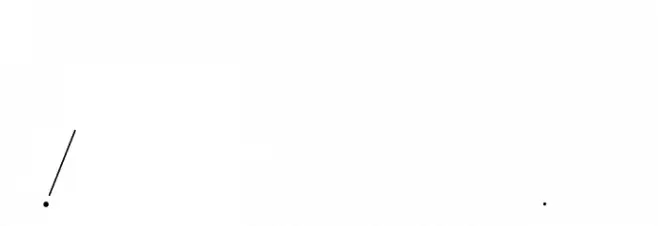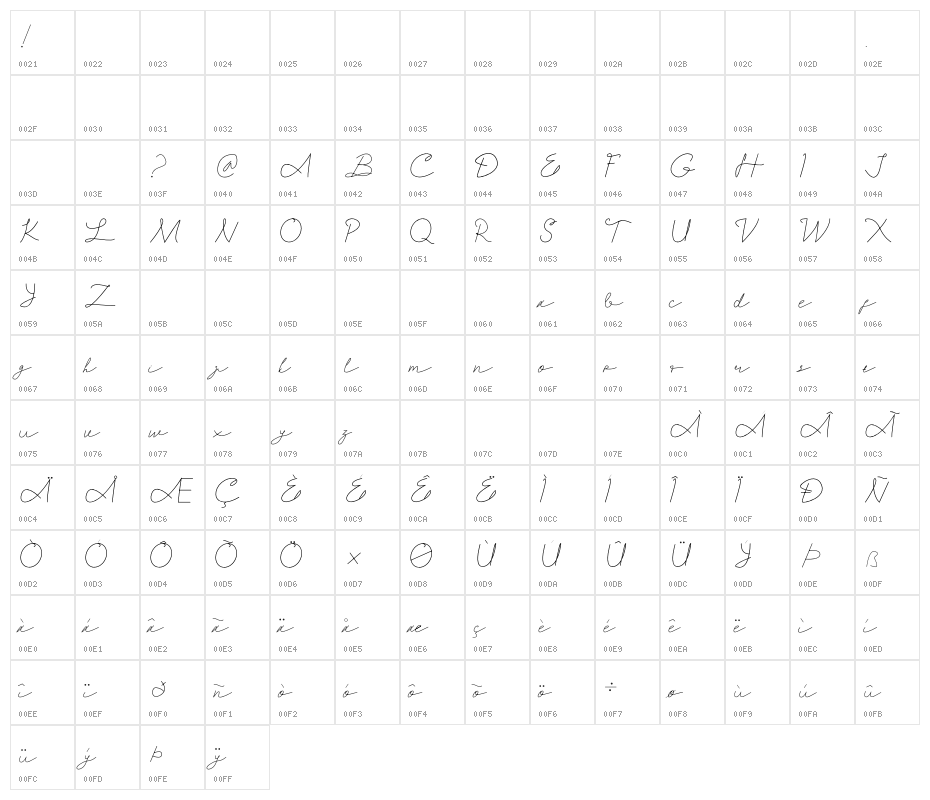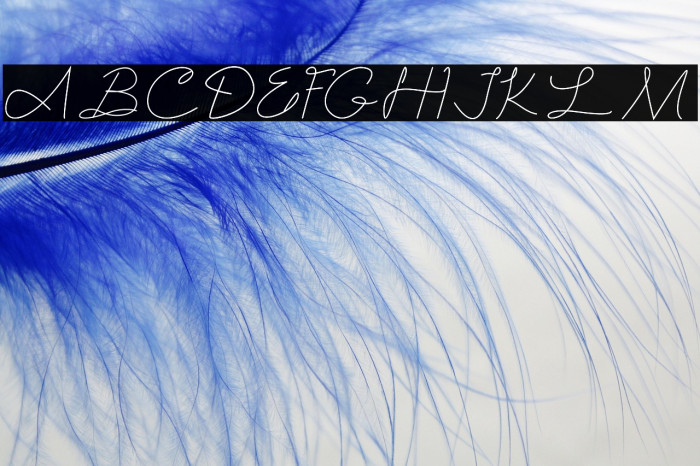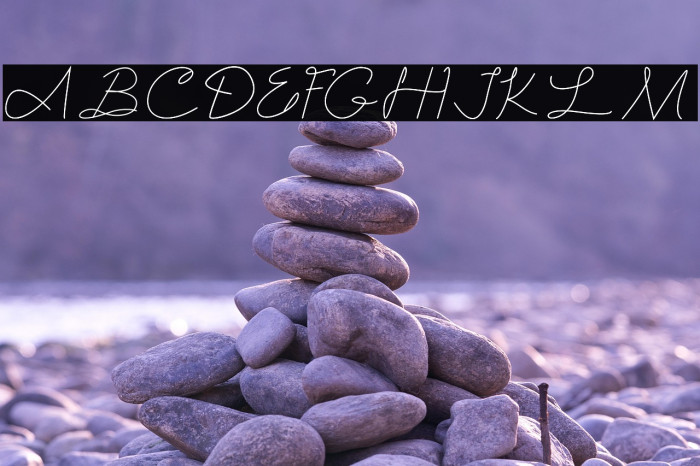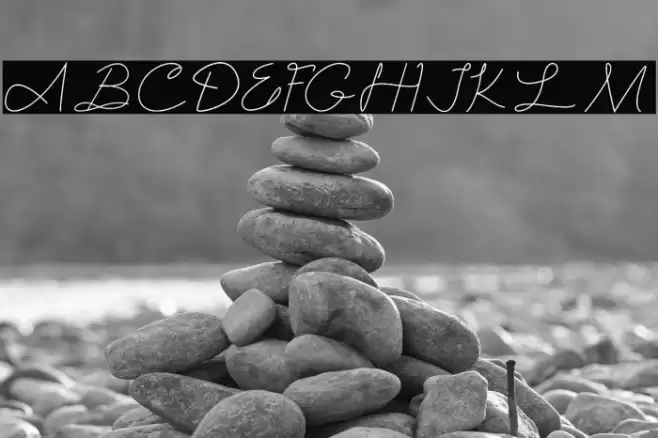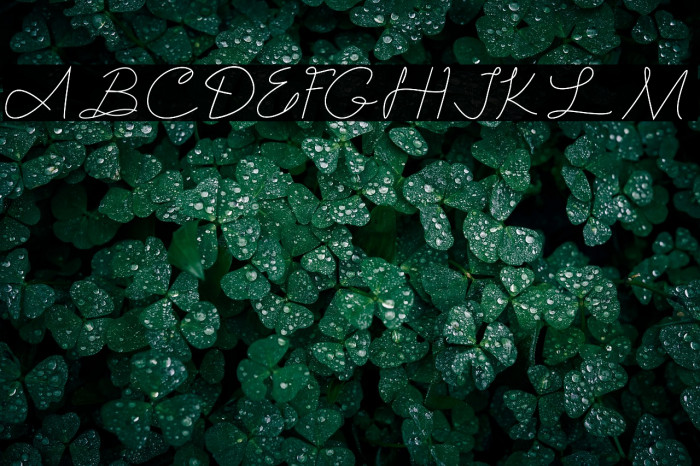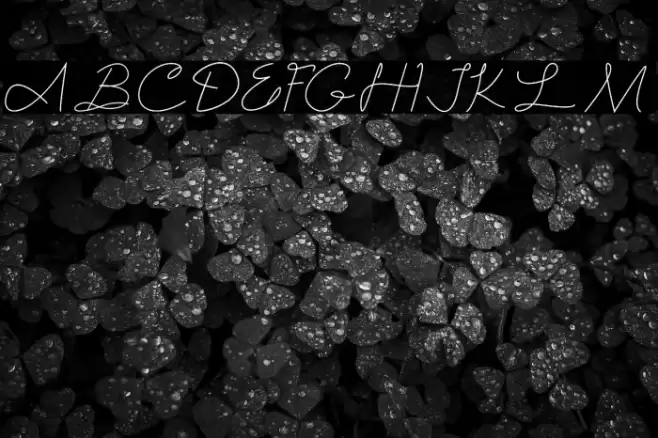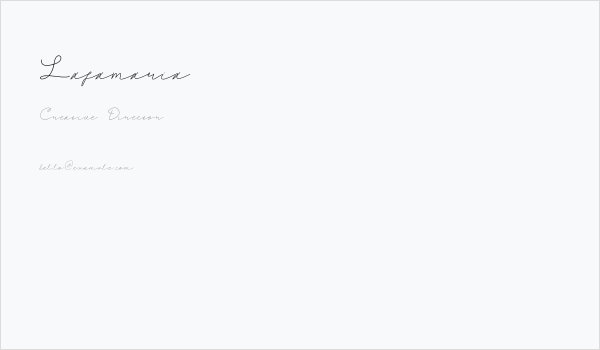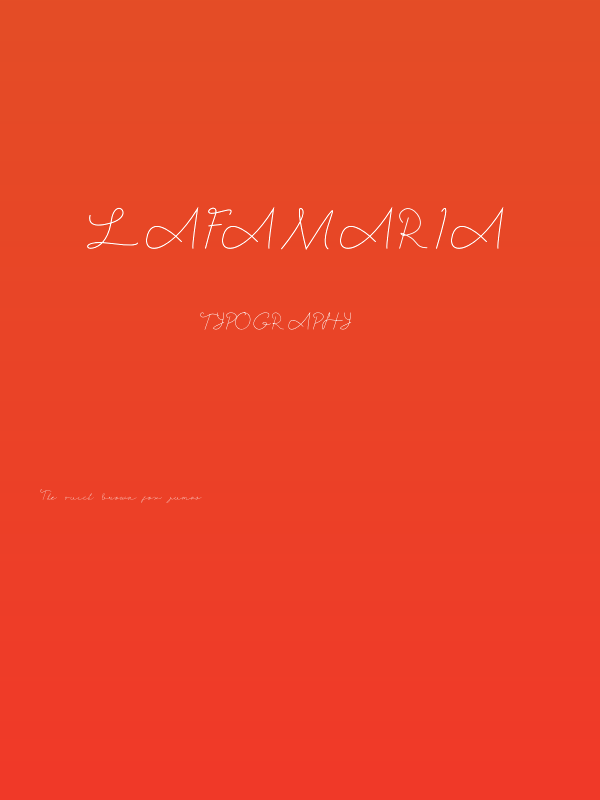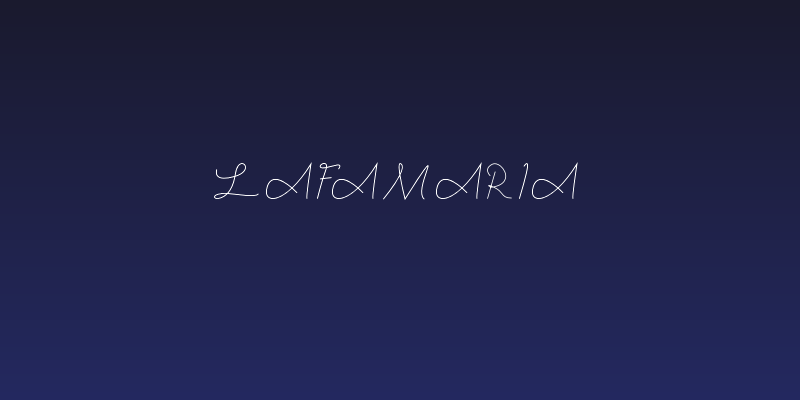
Lafamaria Font
Lafamaria Description
This font features an elegant and flowing script style, characterized by its cursive, handwritten appearance. The letters are interconnected with smooth, continuous strokes, giving it a graceful and sophisticated look. The uppercase letters are slightly more elaborate, with subtle flourishes, while the lowercase letters maintain a consistent, fluid form. The overall design is delicate, with thin lines and a light touch, making it suitable for creating an airy and refined aesthetic. The font's style evokes a sense of elegance and personal touch, ideal for projects that require a handwritten feel.
Overall StyleElegant, Handwritten
Use CaseInvitations, Branding, Stationery
Proposed ProjectsIdeal for wedding invitations, personal letters, branding for luxury products, and elegant stationery.